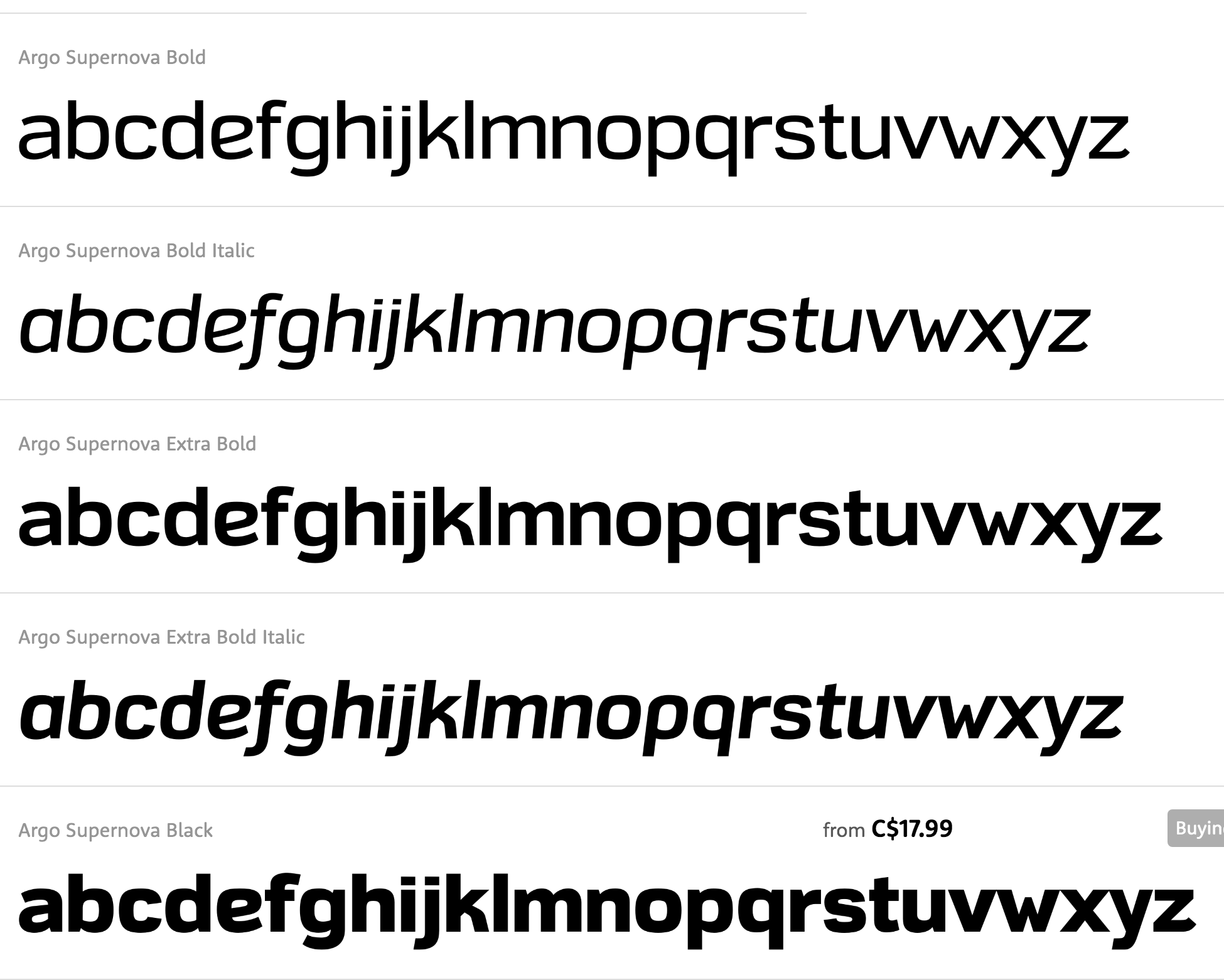
The argo nova font is an adventure though geometric sans universe with a touch of humanistic feel, bringing a different look with. How to intall the font in: Argo supernova fonts free downloads 220 fonts fonts demo more fonts tags designers In all formats (argo nova woff2, argo nova woff, argo nova ttf, argo nova eot). Argo supernova is a sans serif font, inspired by science fiction titles. Argo nova font for the figma, web site and photoshop in all styles. Free download argo nova for macos, windows, sketch, figma, photoshop and web site. Delicate on the thinest weights, strong on the thickest ones, it is. Inspired by science fiction titles, it is versatile. The font is available in all formats (argo nova woff2, argo nova woff, argo nova ttf, argo nova eot) and applicable to the website, photoshop and any os.
Argo Supernova Font Free Download How to intall the font in: The argo nova font is an adventure though geometric sans universe with a touch of humanistic feel, bringing a different look with. Delicate on the thinest weights, strong on the thickest ones, it is. Argo supernova is a sans serif font, with smooth yet memorable shapes. Argo supernova is a sans serif font, inspired by science fiction titles. Argo nova font for the figma, web site and photoshop in all styles. The font is available in all formats (argo nova woff2, argo nova woff, argo nova ttf, argo nova eot) and applicable to the website, photoshop and any os. Inspired by science fiction titles, it is versatile. Argo supernova fonts free downloads 220 fonts fonts demo more fonts tags designers How to intall the font in: In all formats (argo nova woff2, argo nova woff, argo nova ttf, argo nova eot). Free download argo nova for macos, windows, sketch, figma, photoshop and web site.